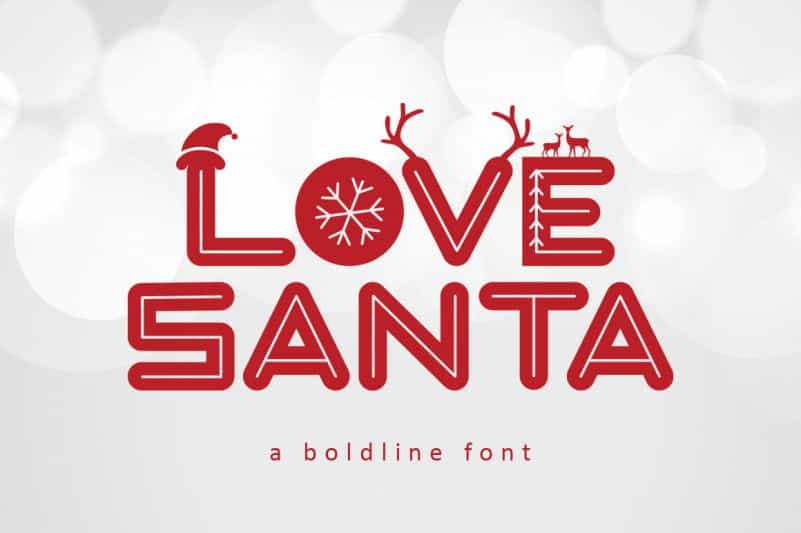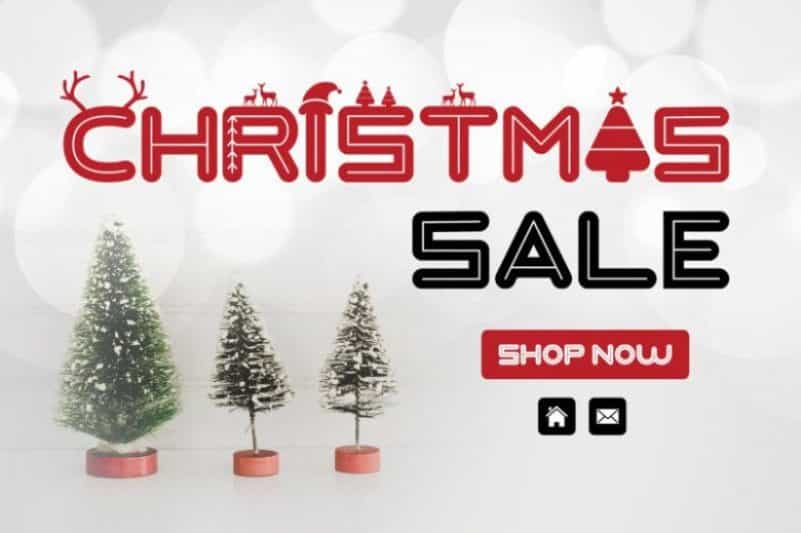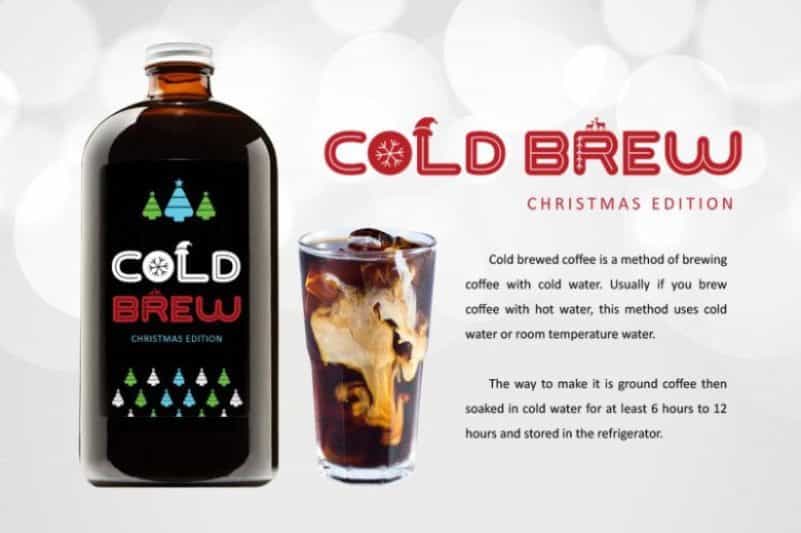
Love Santa Font is created for the lovers of classy, fashion and fabulous things and around. Also give your requirements to develop premium quality designs for a large font size title and it is ideal to be used on a brand name or any words that must be noticeable and ideal to be displayed on any media.